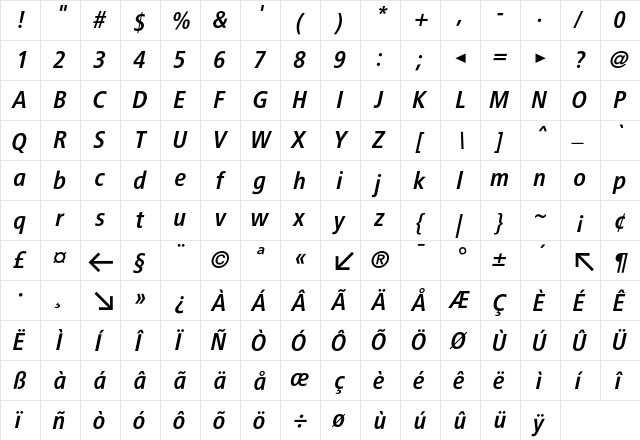
BVGPosAufKursiv Regular
Design Context for BVGPosAufKursiv Typeface
BVGPosAufKursiv takes a measured approach to typography — its balanced proportions and neutral character make it a reliable workhorse for both digital and print work. Its italic angle brings a sense of urgency and motion to the letterforms.
Pro Tip: Use BVGPosAufKursiv for emphasis, pull quotes, and subheadings where its slanted energy can add rhythm to the layout.